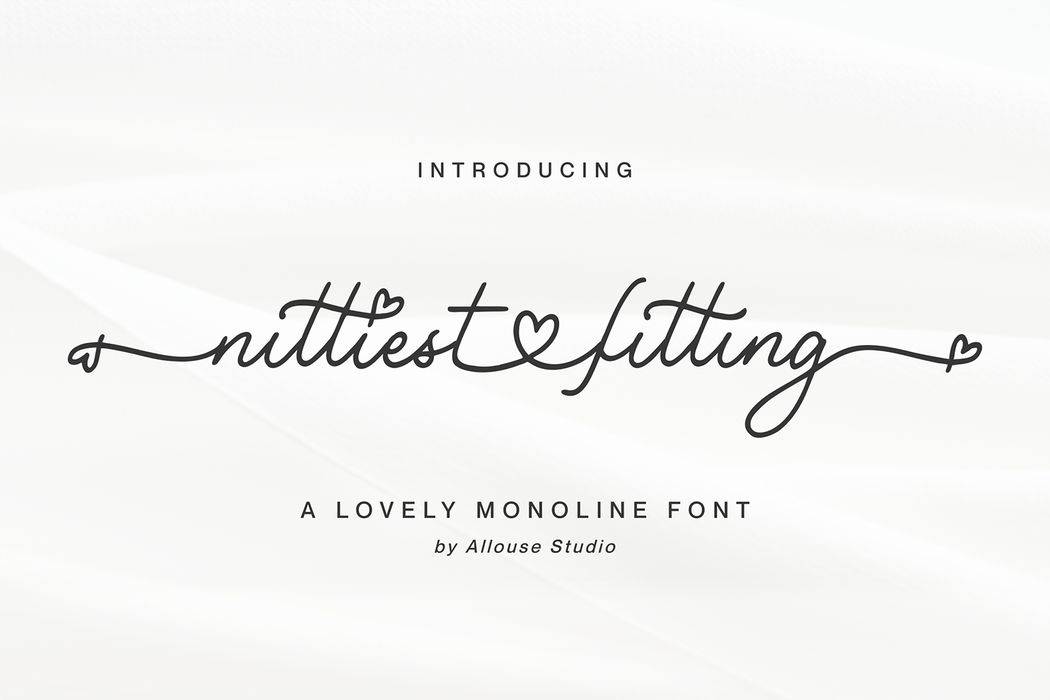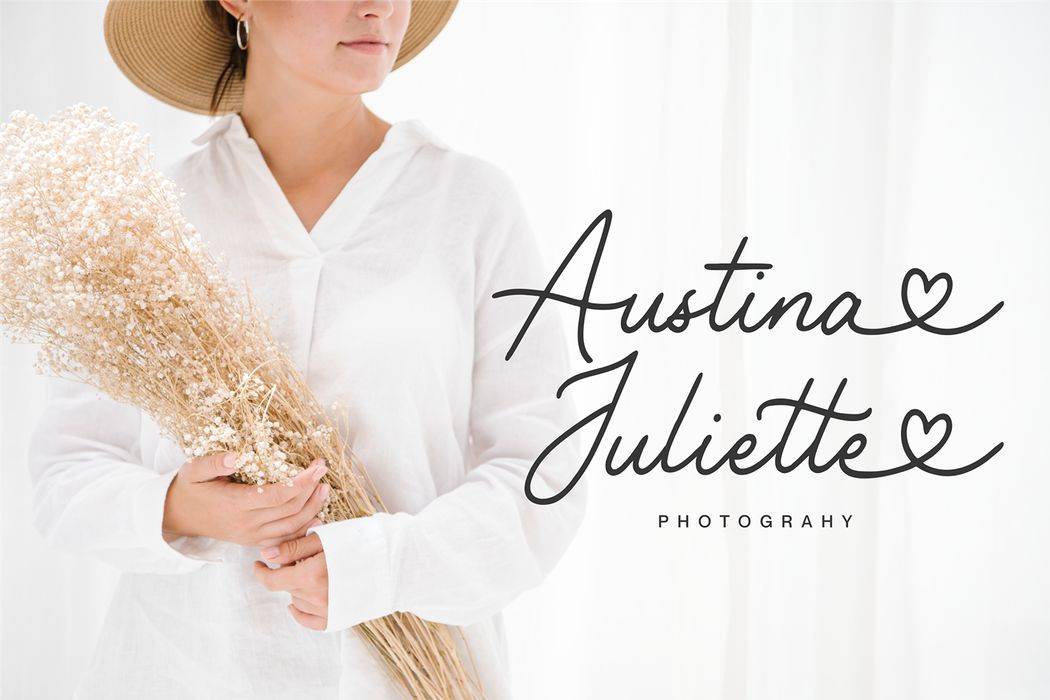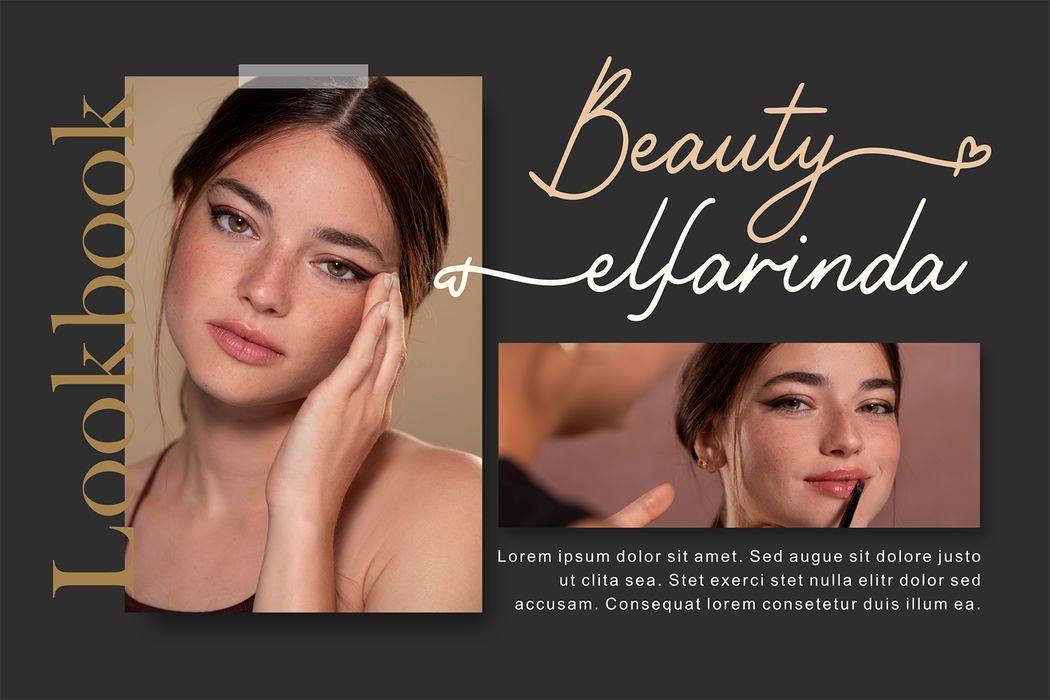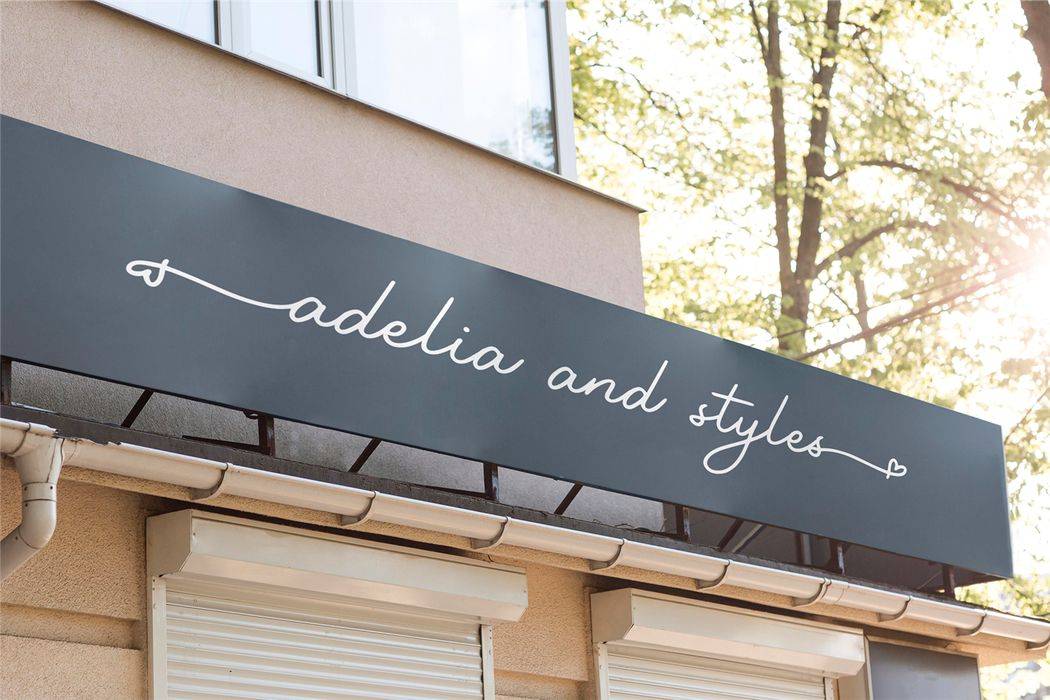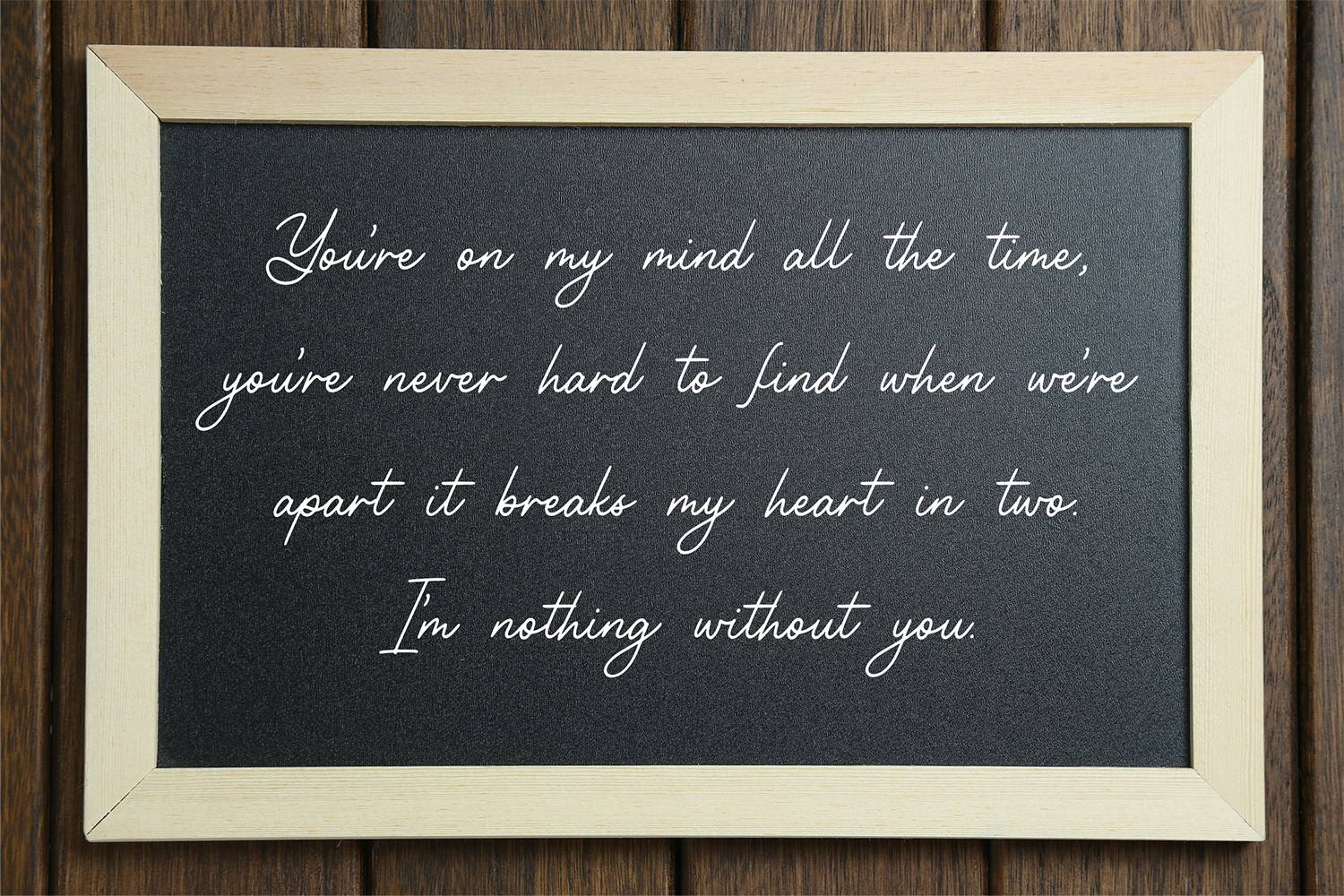
Nittiest Fitting Font is a delicate, handwritten script with a light weight and elegant flow that mimics natural cursive writing. Its slender, slightly slanted letterforms feature smooth curves and a consistent stroke width, creating a refined yet approachable personality ideal for invitations, branding, and personal projects where a graceful, human touch is desired. This font works best in settings that require a stylish, intimate feel without sacrificing readability.
Nittiest Fitting Font
About Nittiest Fitting Font